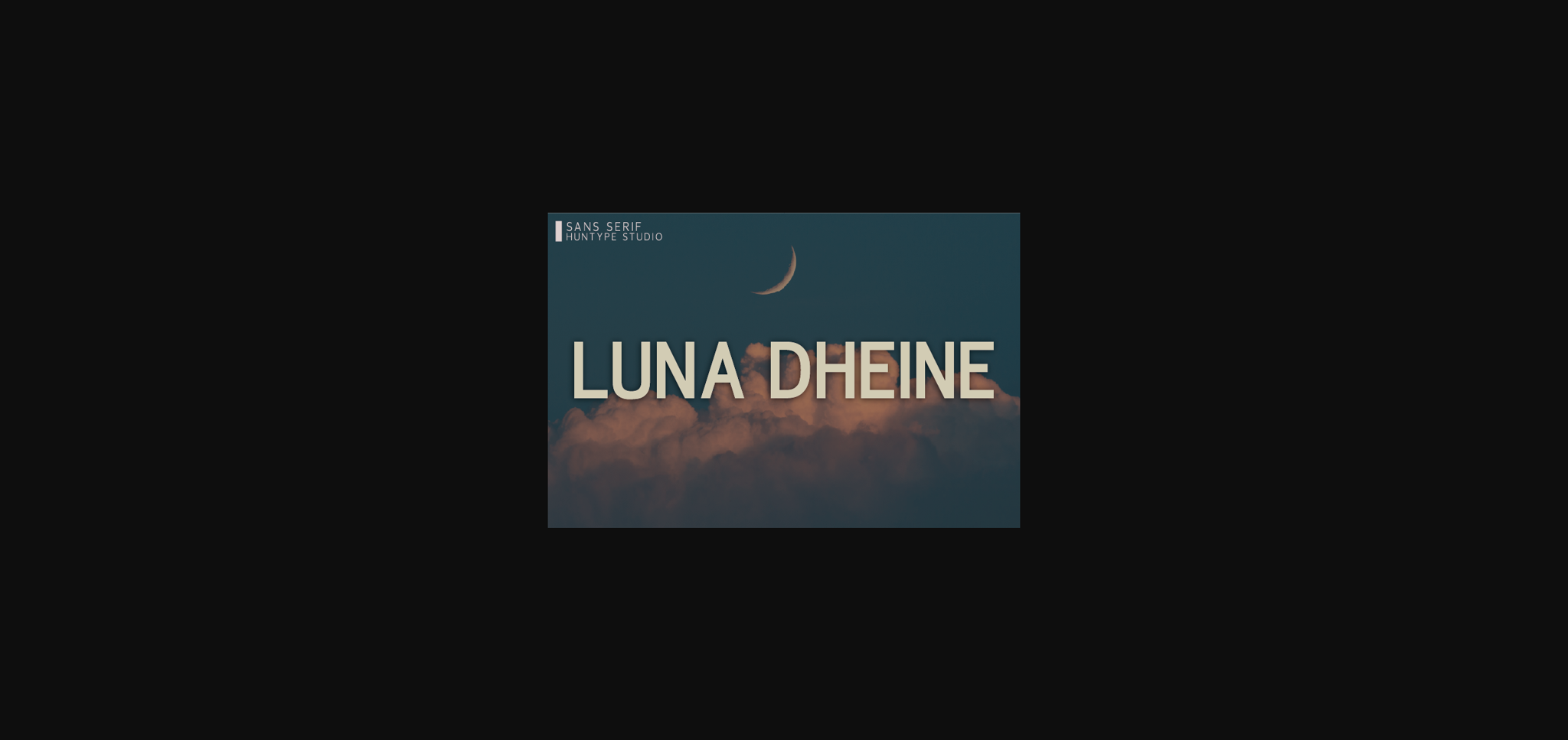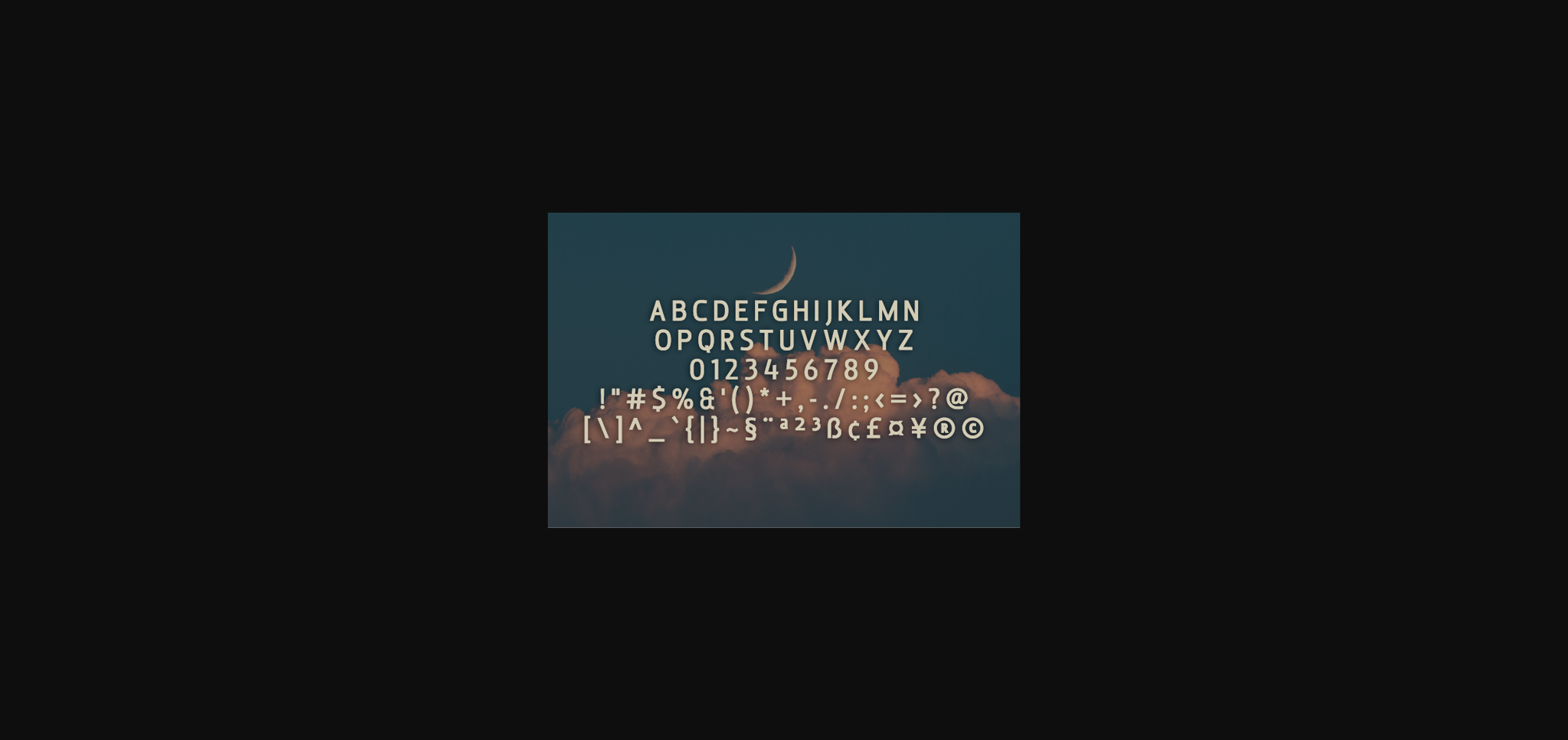
About Luna Dheine Font
Luna Dheine is a trendy and clean sans serif font. It can be used for various purposes such as logos, headings, t-shirts, letterhead, signage, labels, news, posters, badges and so much more.